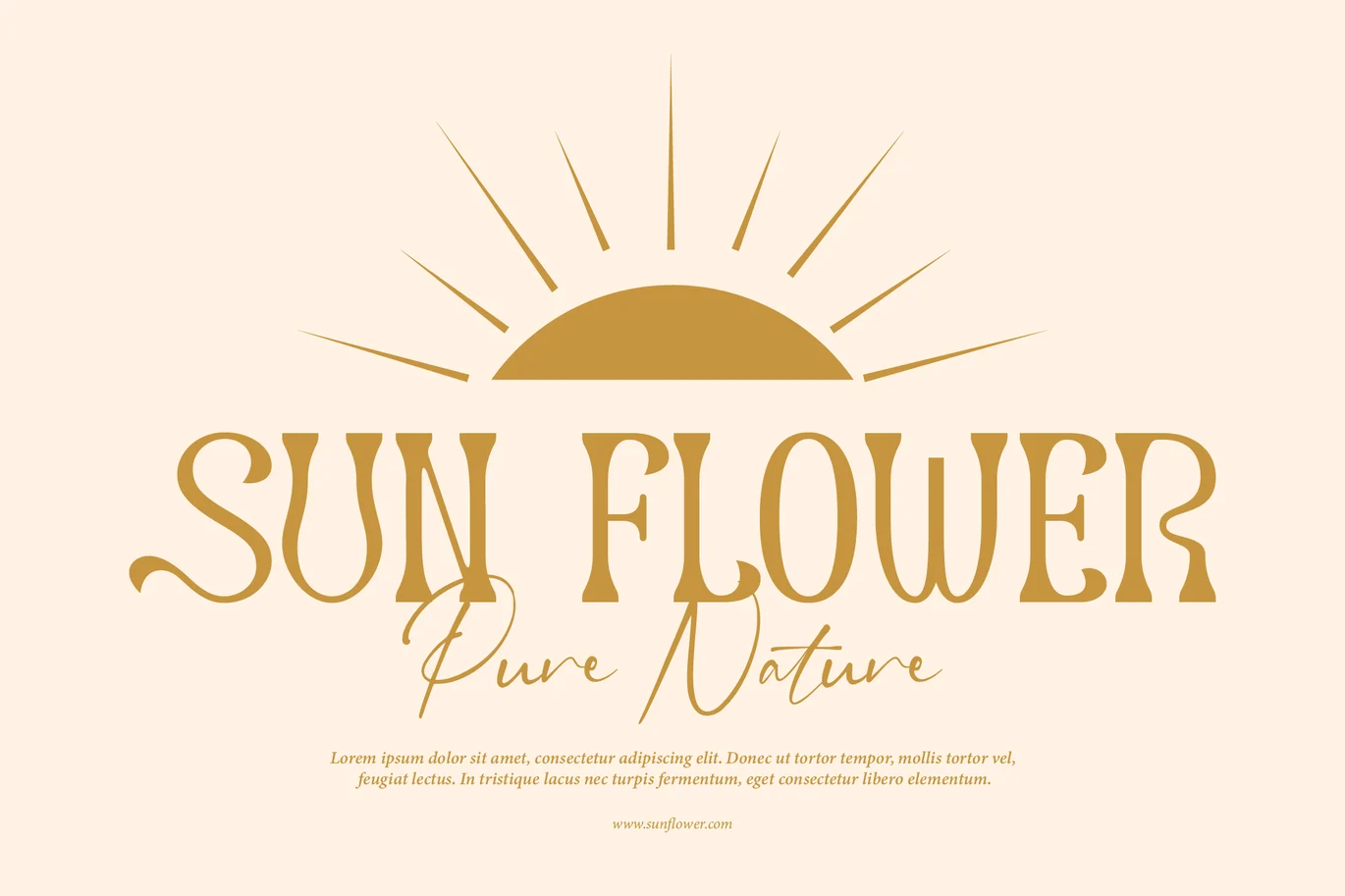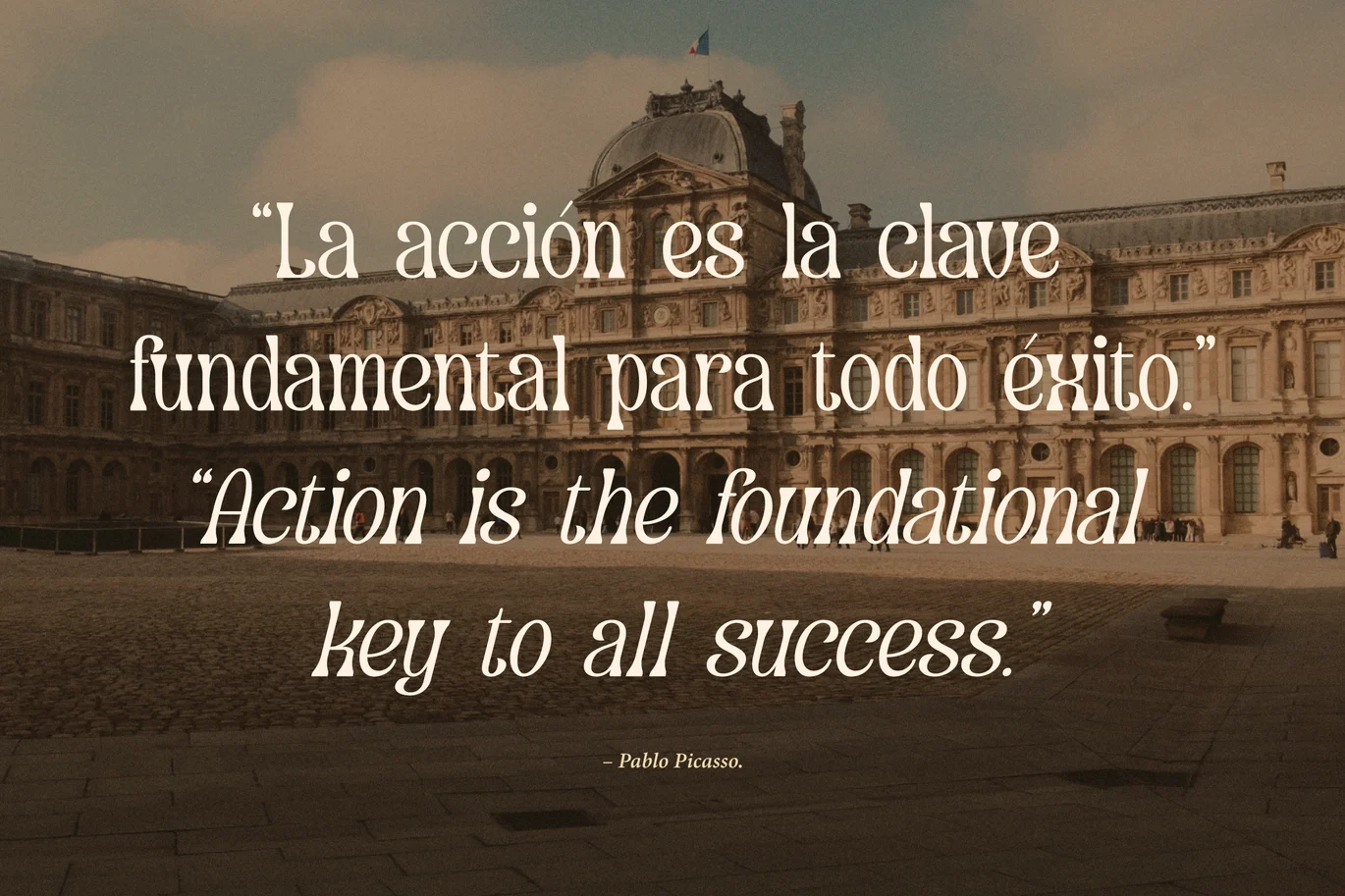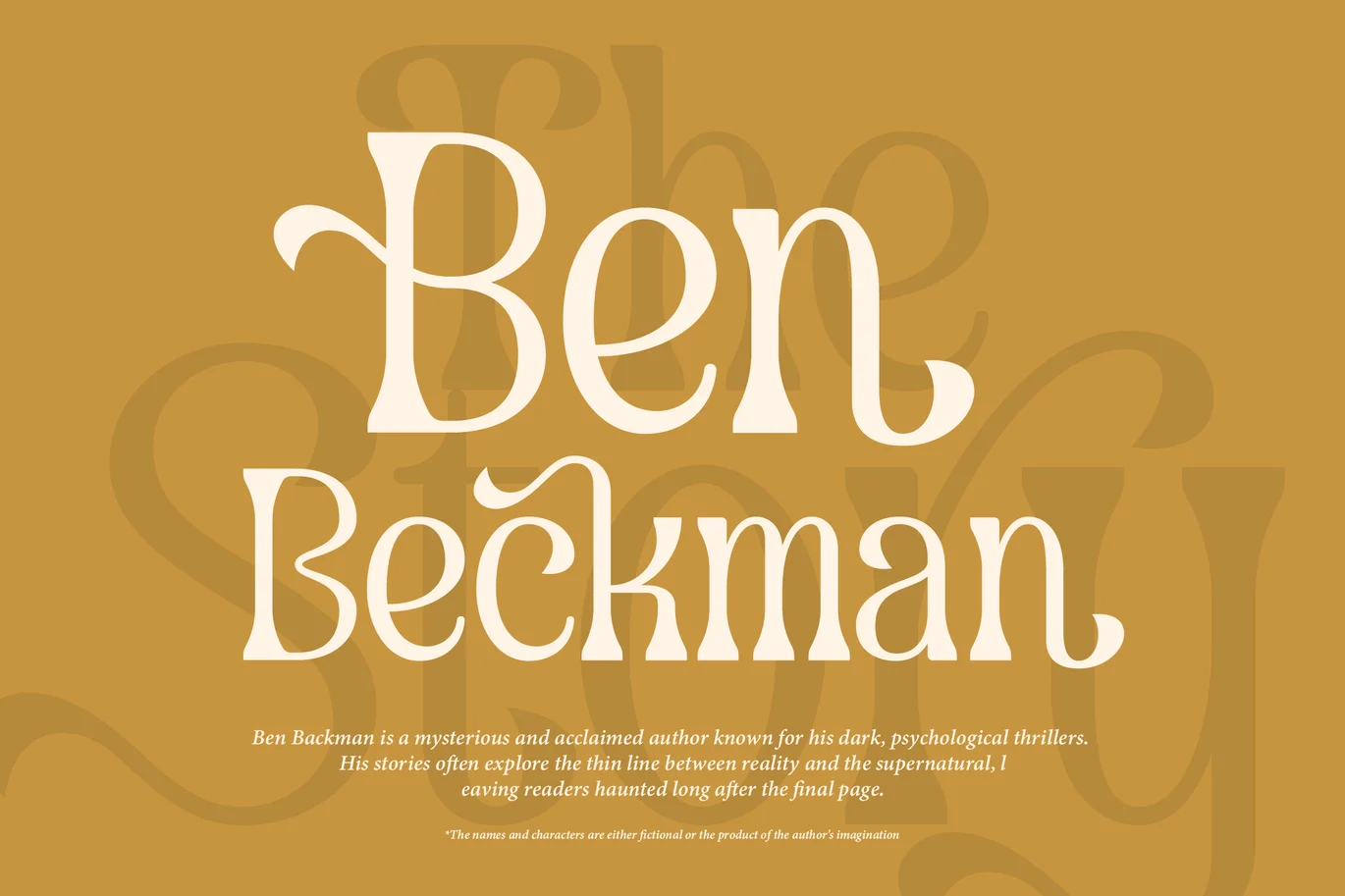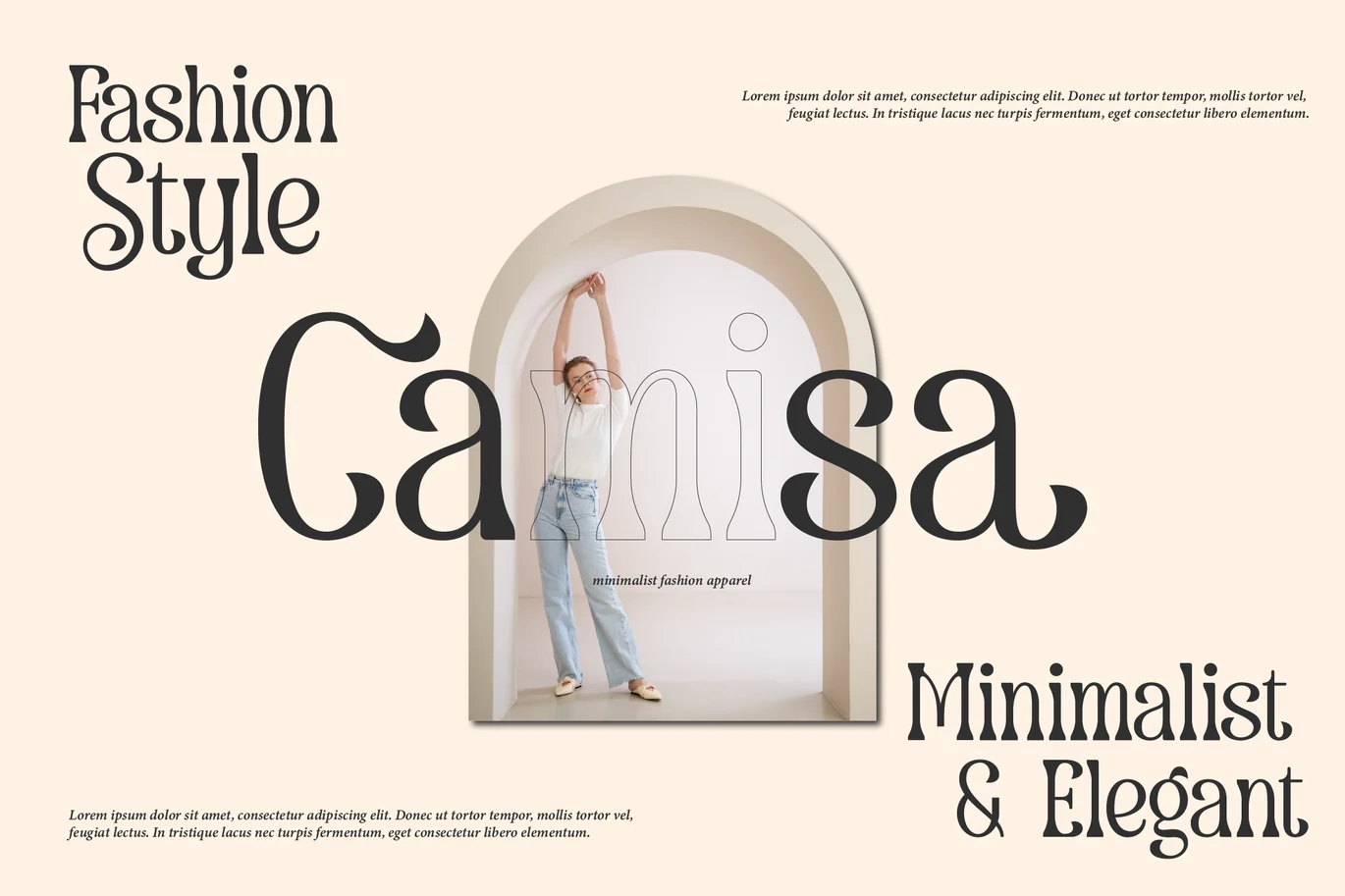
Dearshy Haislein | Slab Serif Font
Deshary lHaisein font is designed to deliver a strong, versatile visual character, balancing aesthetics and readability. Every detail is carefully crafted to ensure a clear, consistent, and visually appealing result across a wide range of design needs.
With well-structured letter proportions and support for features such as alternate characters and ligatures, this font allows for greater creative exploration. The final result is dynamic, distinctive, and professional, making it adaptable to a range of design styles.